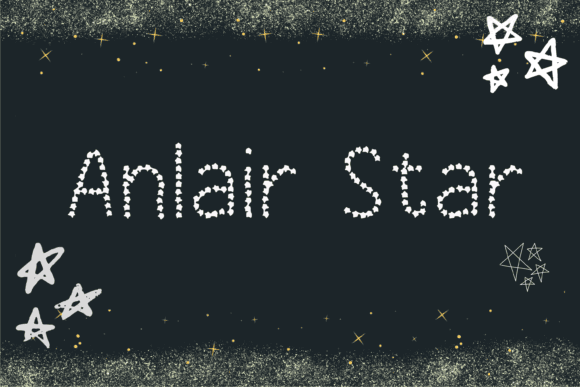
Alnair Star Font for Headlines, Posters and Branding Projects
Alnair Star is a dynamic typeface built to command attention in large-scale text applications. Its stylized geometry and clean construction make it ideal for headline use, professional poster layouts, and identity branding where a modern edge is essential. The versatility of Alnair Star allows it to seamlessly integrate with various design aesthetics, making it suitable for both traditional and contemporary projects. Its unique character set and bold presence make it an excellent choice as an Anglican font for branding projects, elevating the overall impact of visual communications. From corporate identity to event promotions, this typeface ensures that messages stand out with clarity and sophistication.
This font entity is optimized for high legibility and visual appeal, offering designers a futuristic tone while maintaining balance and structure. Its bold aesthetic suits both print campaigns and on-screen promotions.
Whether you're creating brand visuals or promotional assets, Alnair Star delivers a strong, confident typographic voice.
- Brand identity designers and agencies
- Poster and ad layout artists
- Tech product marketers
- UI/UX design teams
- Creative professionals in publishing and media
- Futuristic headlines and magazine covers
- Technology brand assets and presentations
- App UI titles and product launch materials
- Digital banners and media ads
- Event posters and motion graphics
- Modern, clean typeface with futuristic flair
- Perfect for impactful branding and editorial use
- Strong legibility in both print and digital
- Delivers sharpness and edge to visual layouts
Q: What kind of font is Alnair Star?
A: It is a futuristic display font designed for high-impact headlines, posters, and branding visuals.
Q: Is this font good for digital projects?
A: Absolutely. Its crisp style and geometric structure make it ideal for digital display and branding.